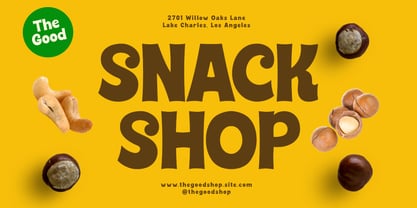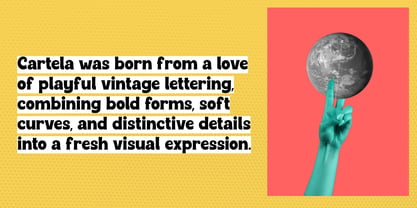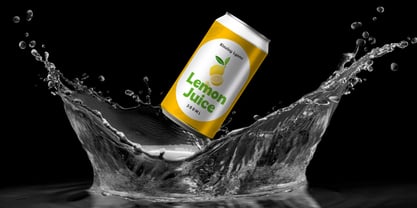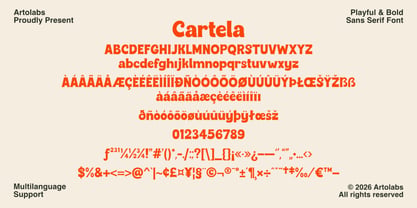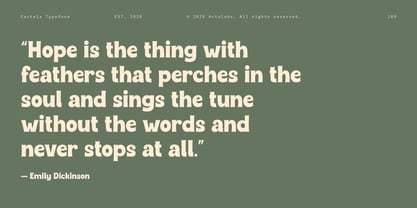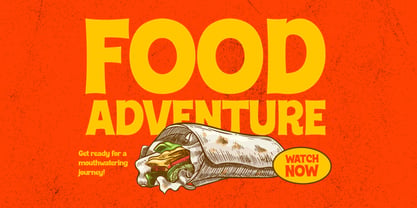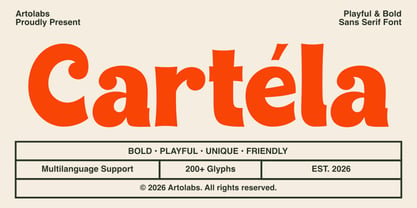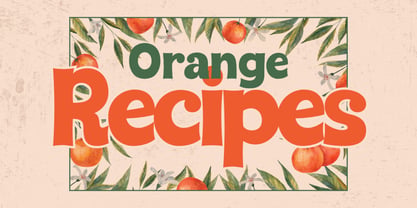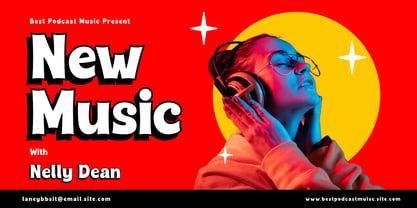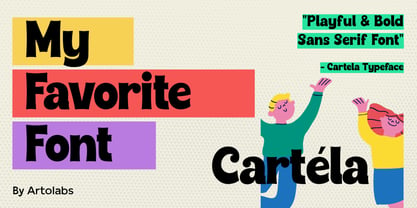
Cartela
by Artolabs
The Cartela Font Family was designed by Mohammad Abi Afandi and published by Artolabs. Cartela contains 1 styles. More about this family
Cartela is a bold, playful sans serif font with soft curves and a nostalgic, vintage-inspired character. Its rounded letterforms and distinctive details give it a warm, expressive personality that stands out.
While best suited for headings and display use, Cartela remains versatile enough for shorter body text, with multilanguage support and over 200 glyphs for a wide range of projects.
Perfect For:
• Logos & brand identity
• Poster & flyer design
• Packaging design
• Social media graphics
• Editorial headlines
• Website
Designers: Mohammad Abi Afandi
Foundry: Artolabs